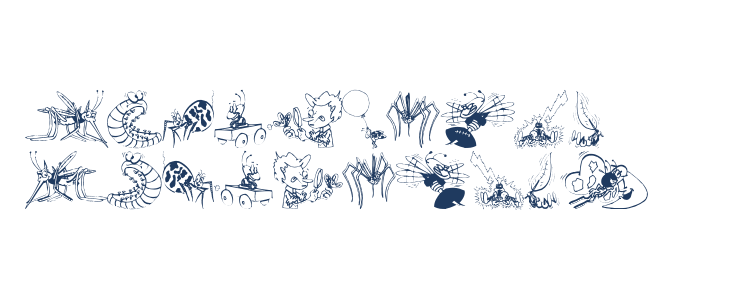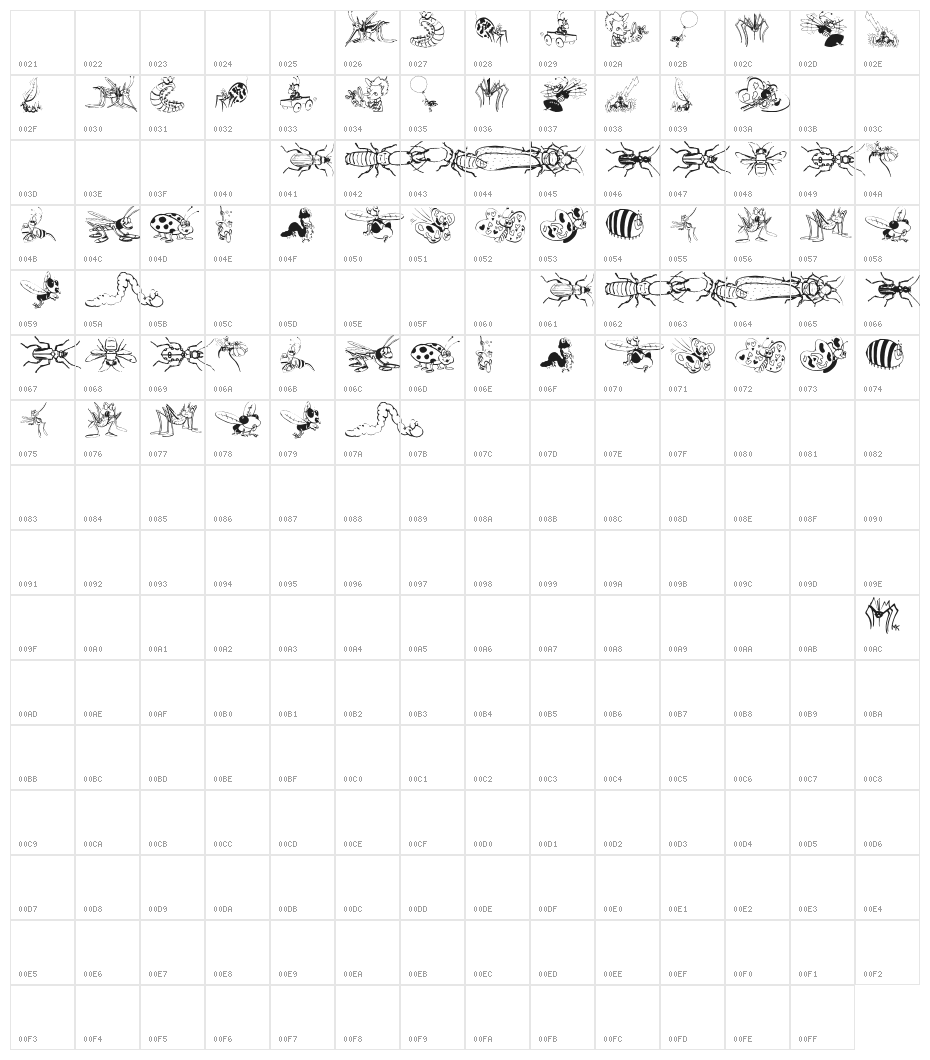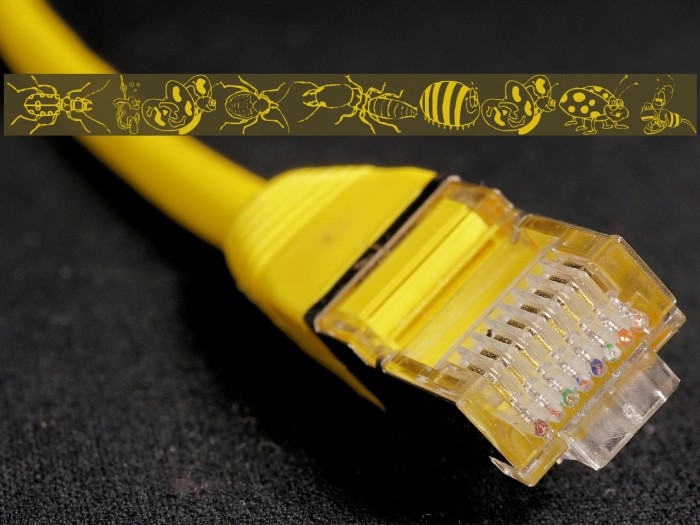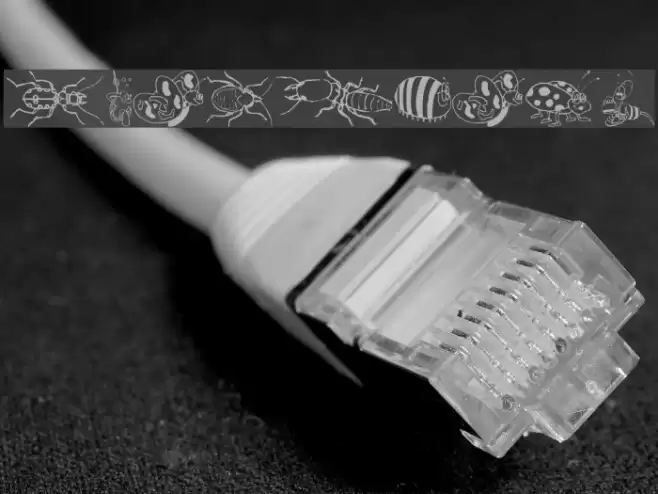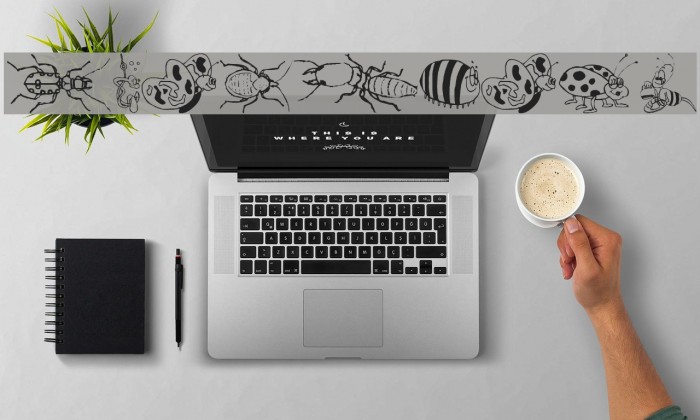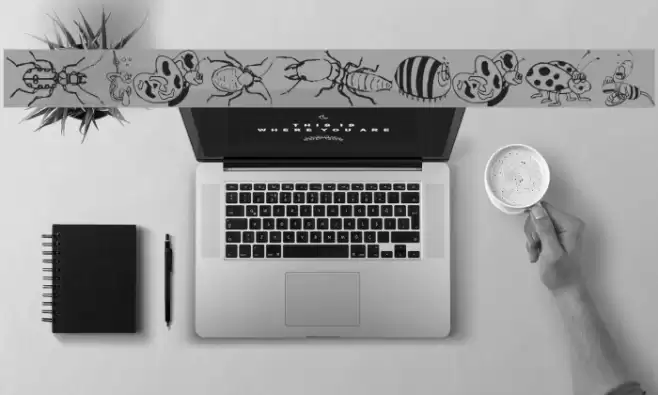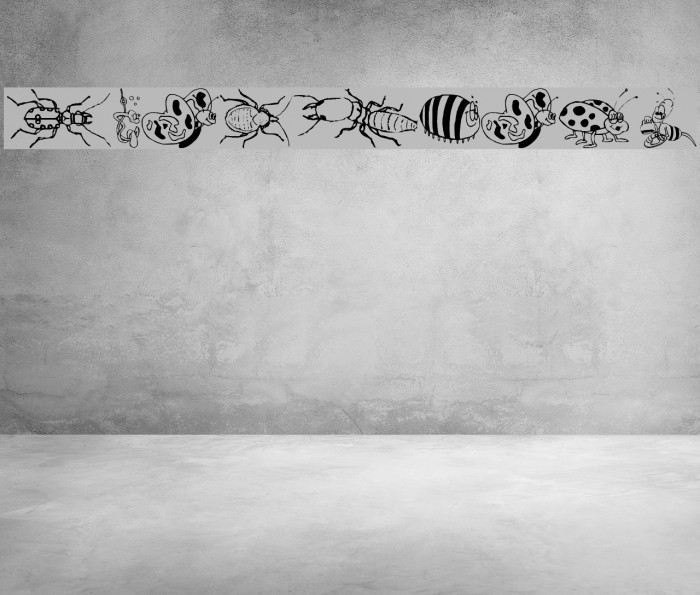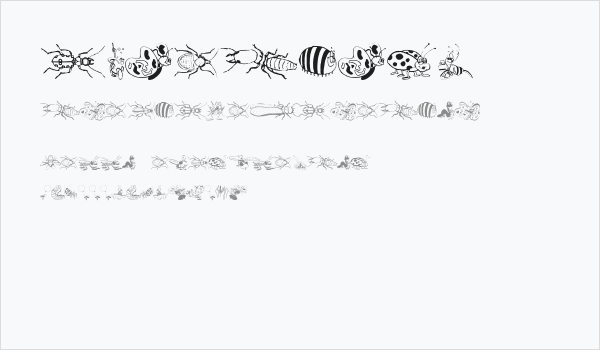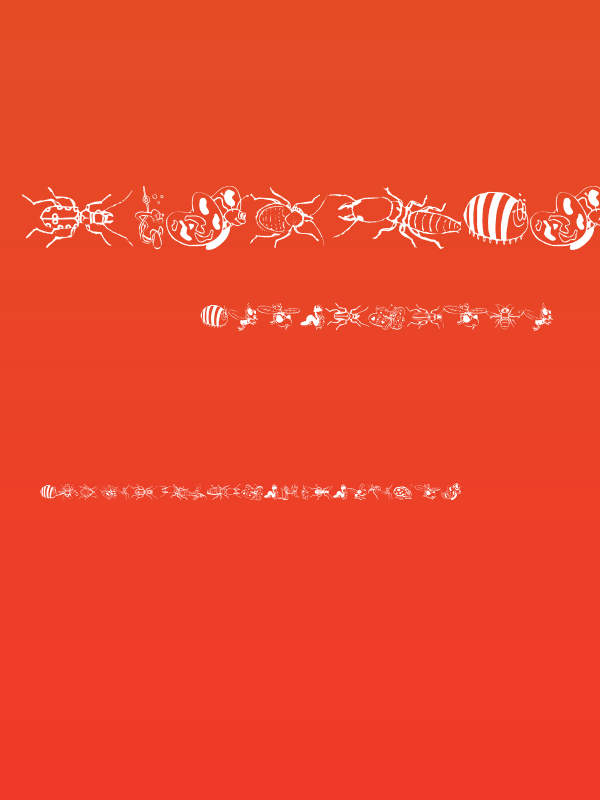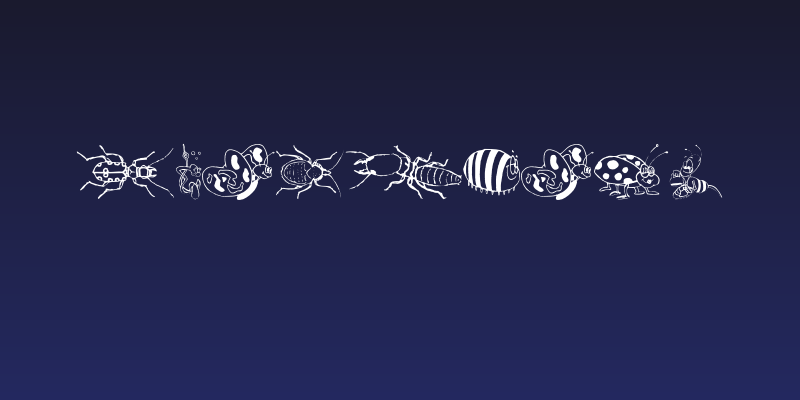
InsectsMK Font
InsectsMK Description
This is a decorative font featuring a variety of whimsical insect illustrations. Each character is represented by a unique insect design, ranging from ants and beetles to bees and butterflies. The style is playful and cartoonish, with intricate details that bring each insect to life. The font is not meant for traditional text but rather for creative projects where a fun and quirky element is desired. The characters are evenly spaced, ensuring a consistent look across the board.
| Use Case | Logos, Posters, Creative Design |
| Proposed Projects | Ideal for children's books, educational materials, themed party invitations, and creative design projects requiring a whimsical touch. |